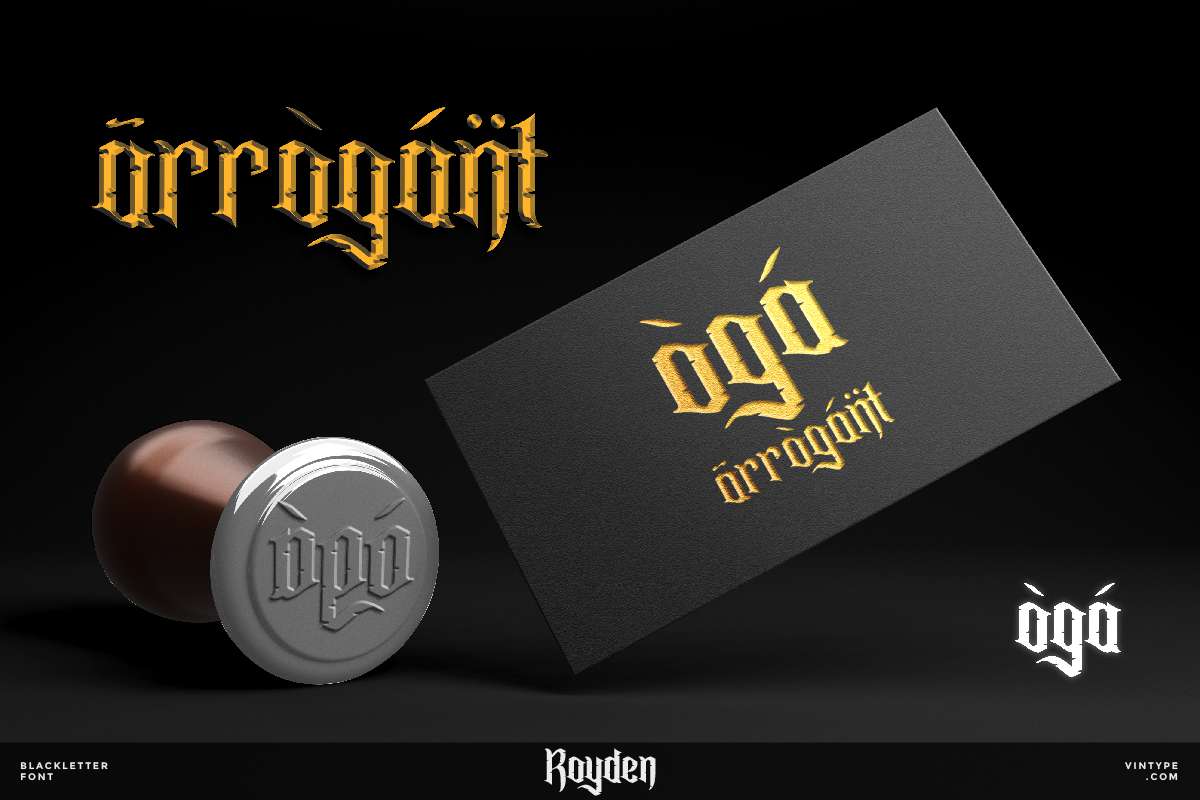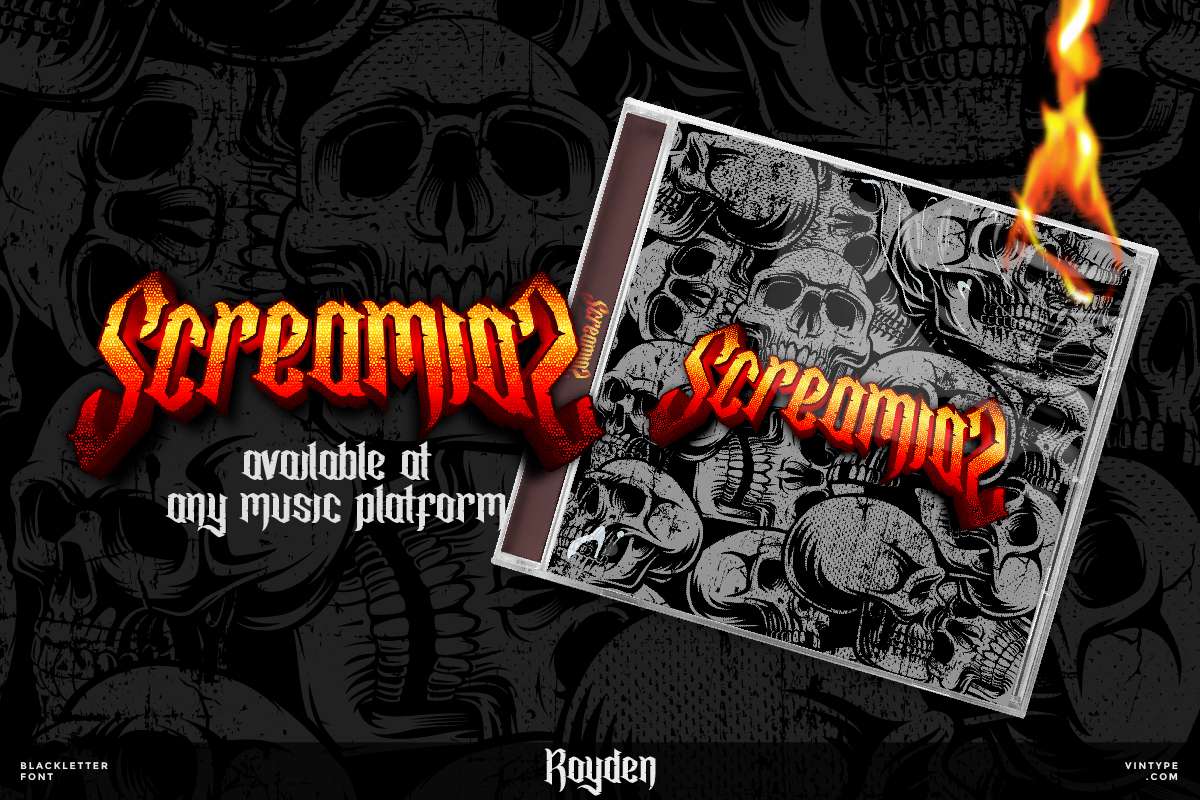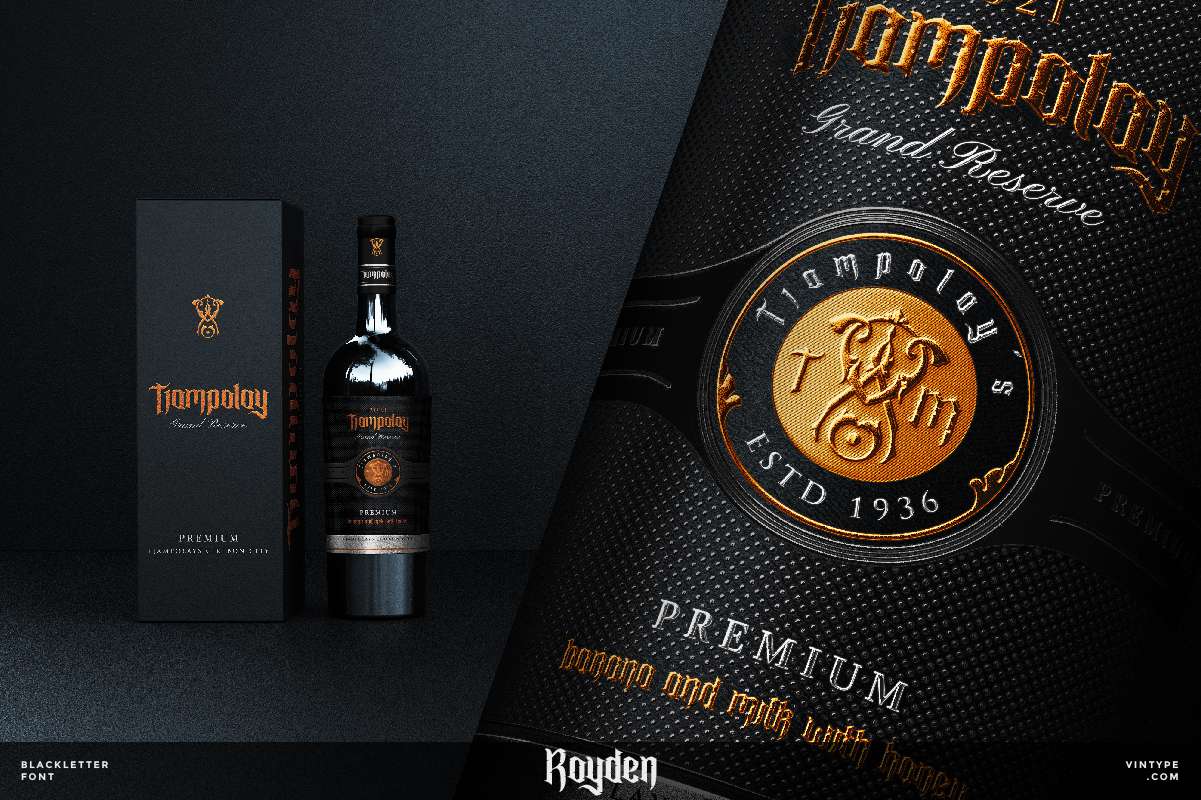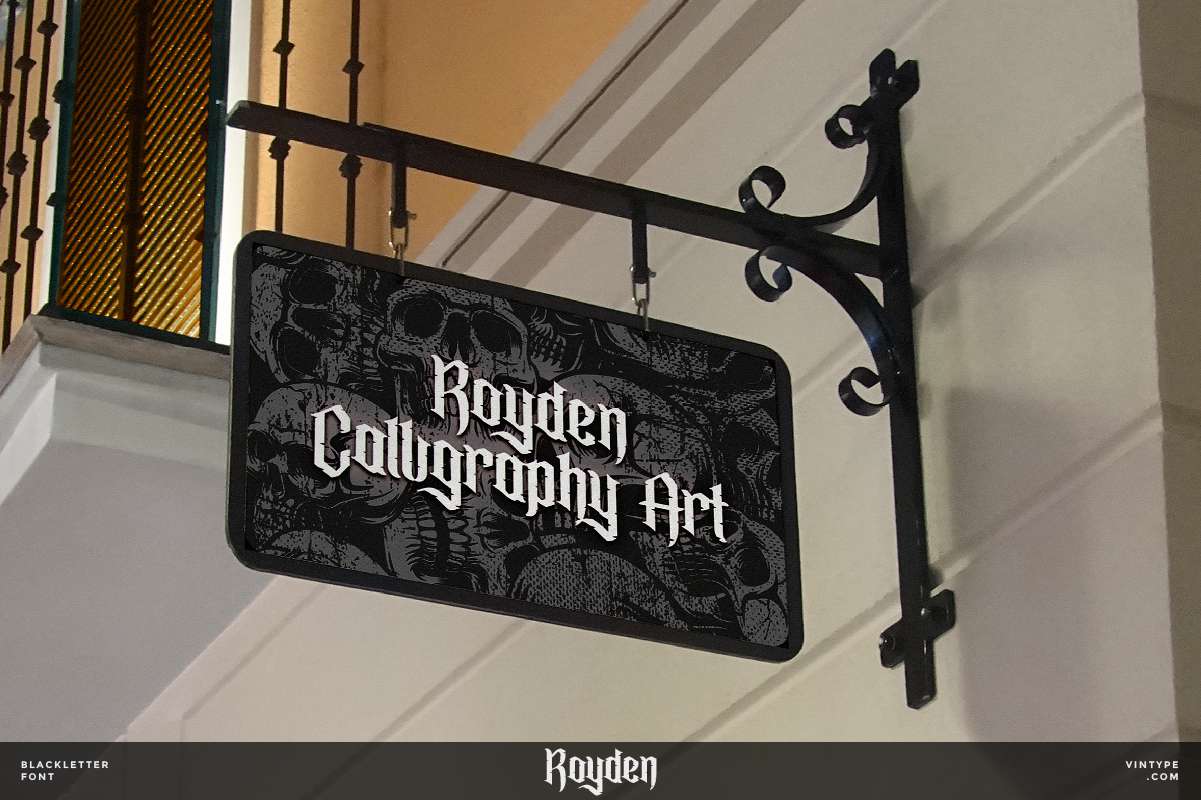
Royden Font
Royden Display Font
This is a display font with blackletter style. This font has horror and classic style that looks awesome in just about every context. Use it for branding logo, fashion, gaming, packaging, products and more!
Royden Display Font includes full set of Uppercase and Lowercase Basic Characters, Numerals and Punctuation. This font would be great to use for any project that requires a bold and scary look!